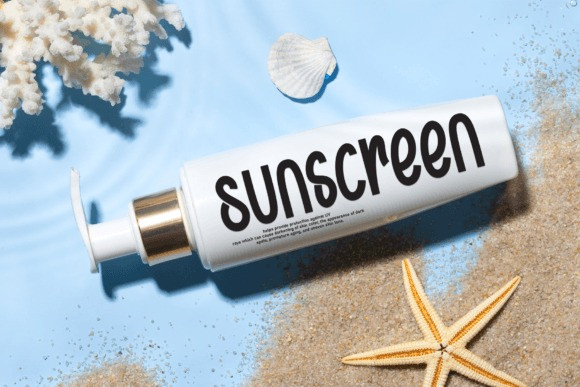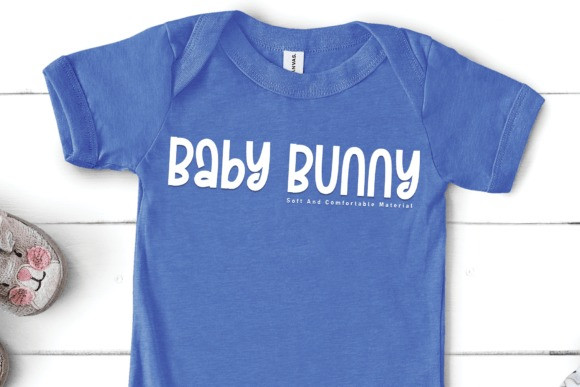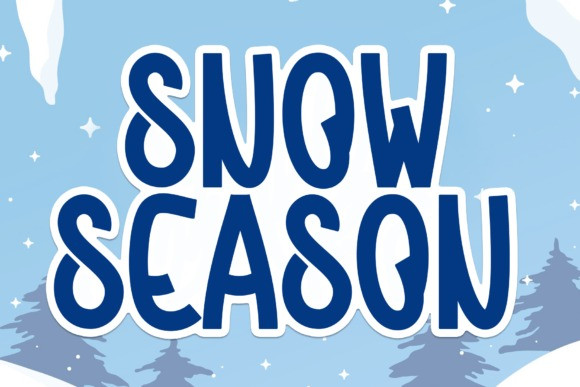
Snow Season Font
Snow Season Font, this is a cute and friendly handwritten font. Cute and fun, this font is ideal for wedding invitations, cards or any other design that needs a little fun!